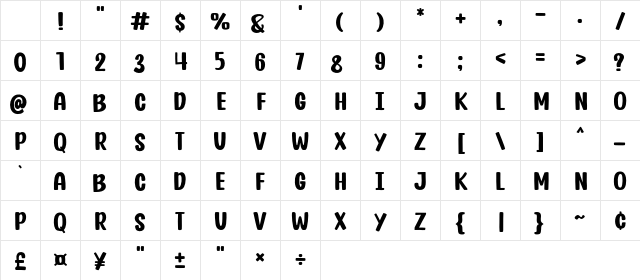
Chatkids has an approachable, lighthearted character - its loose, expressive forms are well-suited to children's content, casual branding, and fun-first design.
Font Pairing: Pairs well with a rounded or humanist sans for body copy, maintaining the friendly tone without relying on Chatkids to carry extended reading.
Pro Tip: Use Chatkids at larger display sizes where its expressive character can land. Pair with a clean, simple sans for body copy to maintain readability.